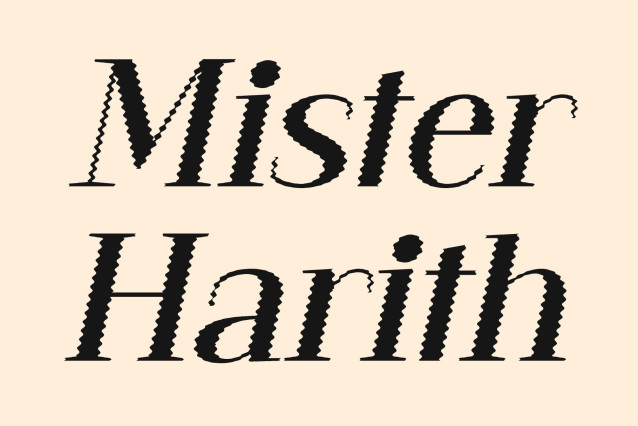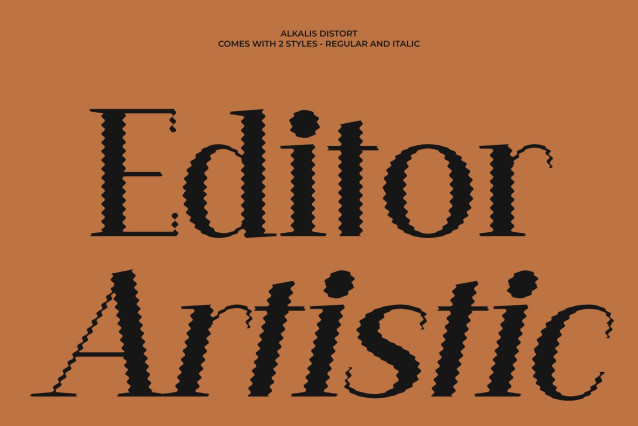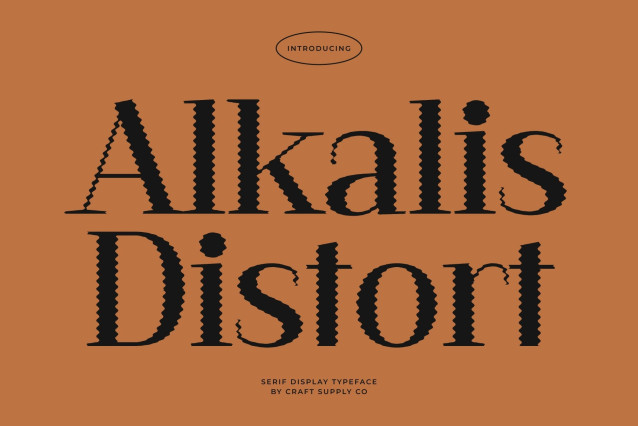
Alkalis Distort – Modern Elegant Serif Display Font: Where Timeless Sophistication Meets Fluid Distortion
Refined Contemporary Serif Forms with Luxurious Presence
This is a modern elegant serif display font where contemporary sophistication meets timeless beauty. Its refined serif structure and balanced proportions create a graceful visual identity filled with elegance, style, and premium character. Every letter feels polished and expressive, making the font perfect for luxurious creative projects and sophisticated editorial compositions.
Distort Effect with Gentle Organic Motion
This font features fluid organic contours along the letter edges that create a subtle melting effect. This expressive detailing introduces movement, softness, and artistic visual flow while preserving the font’s elegant serif structure. The result is a dynamic and immersive appearance that feels modern, artistic, and visually captivating.